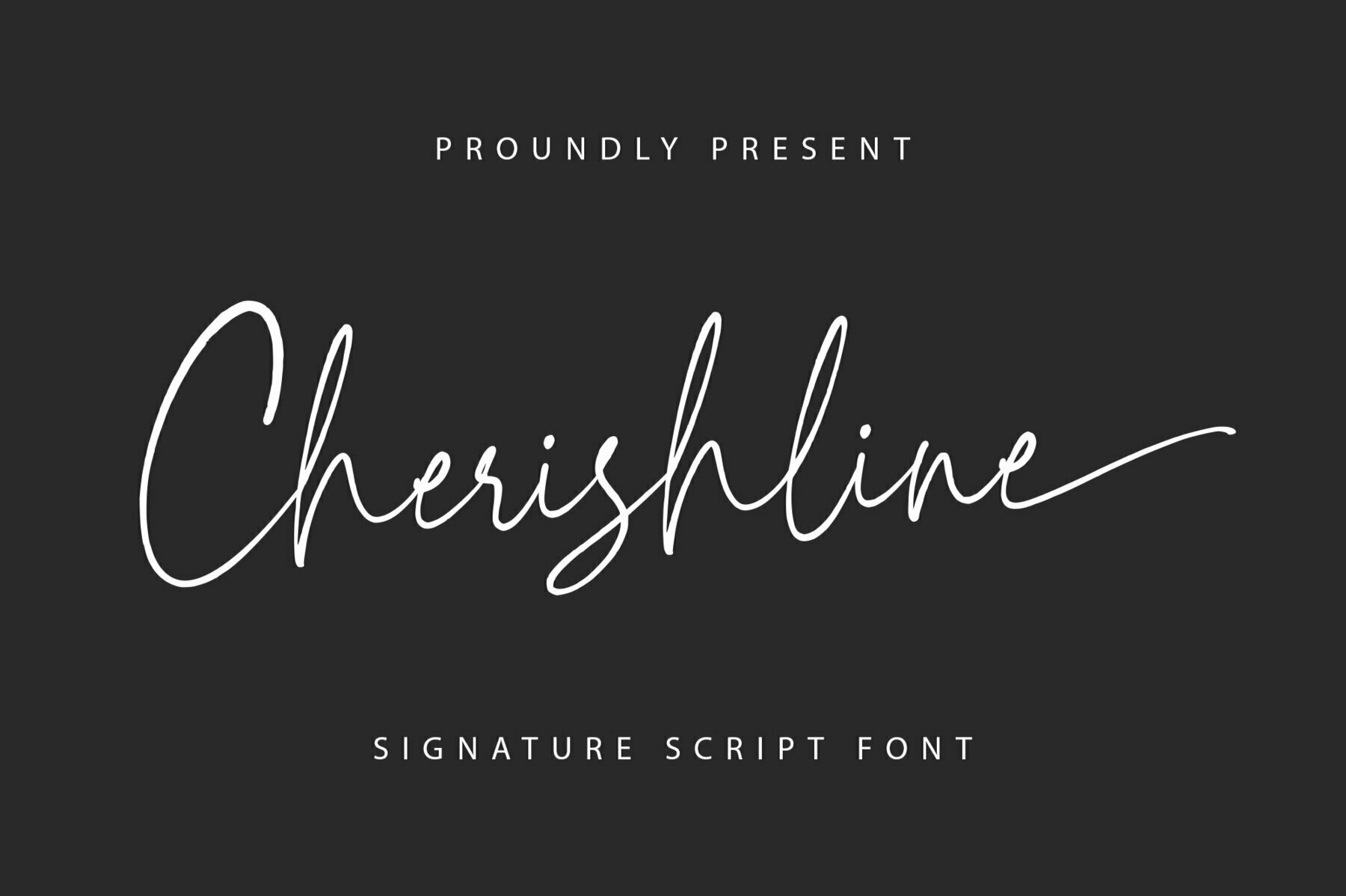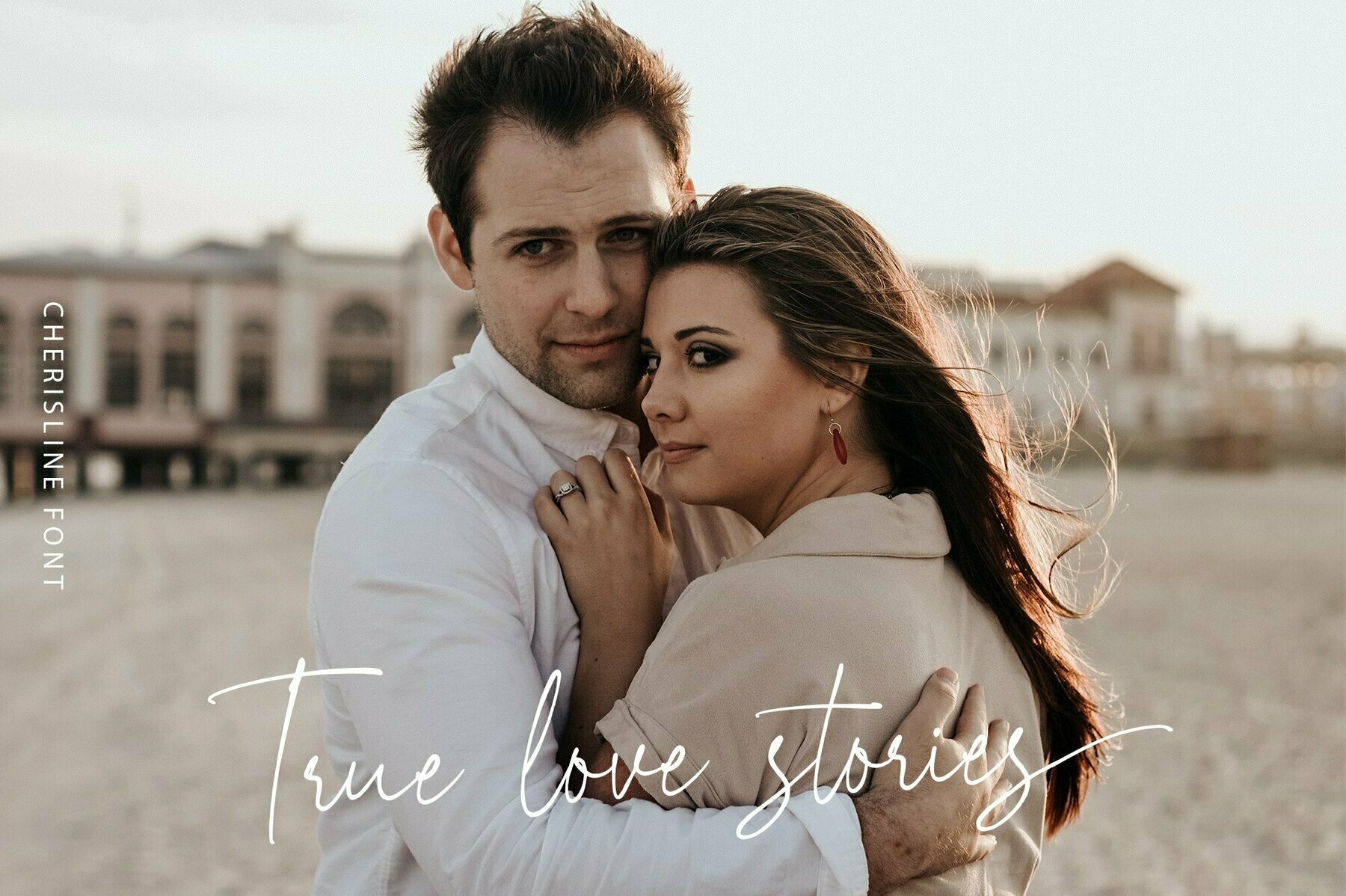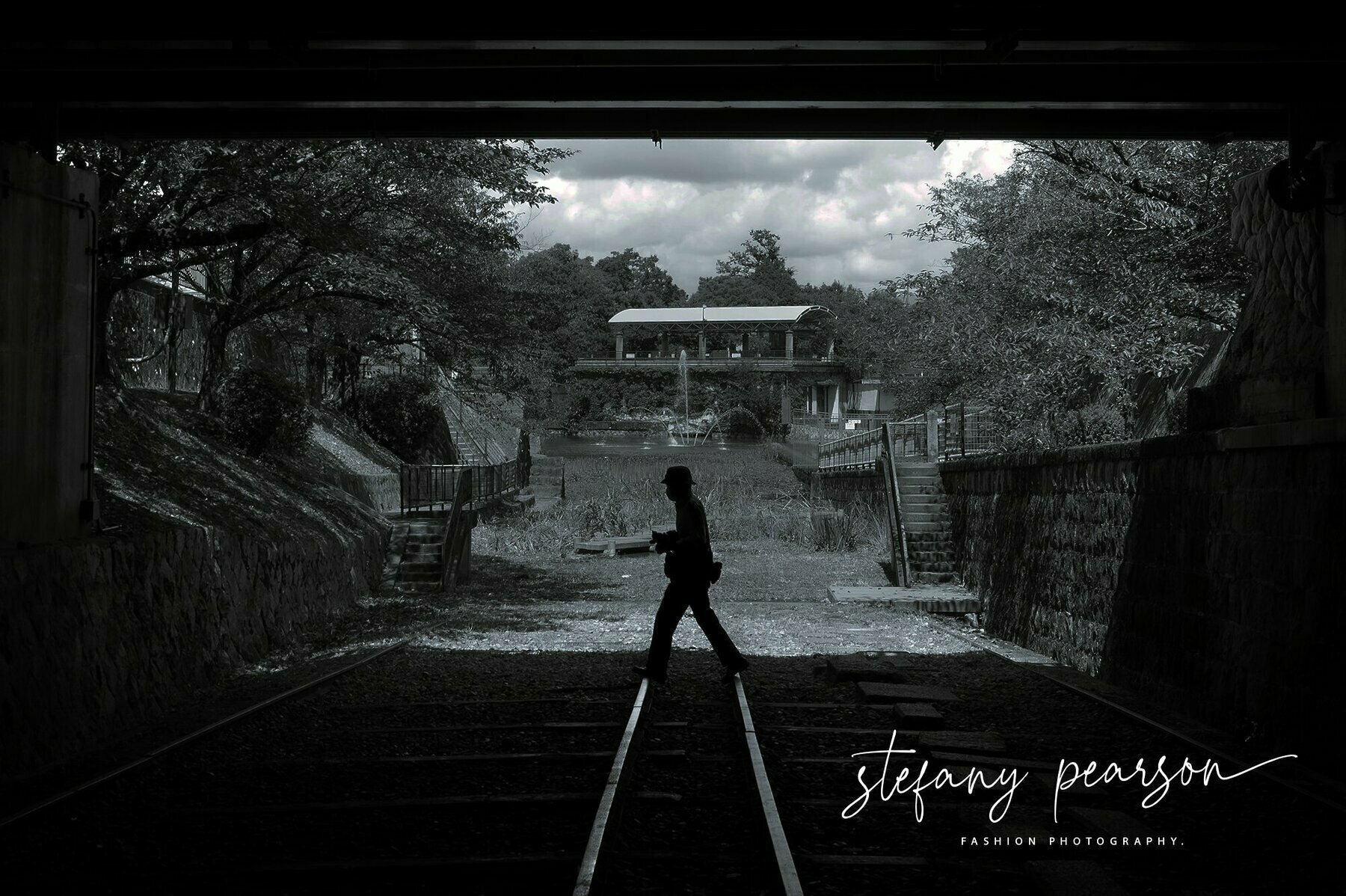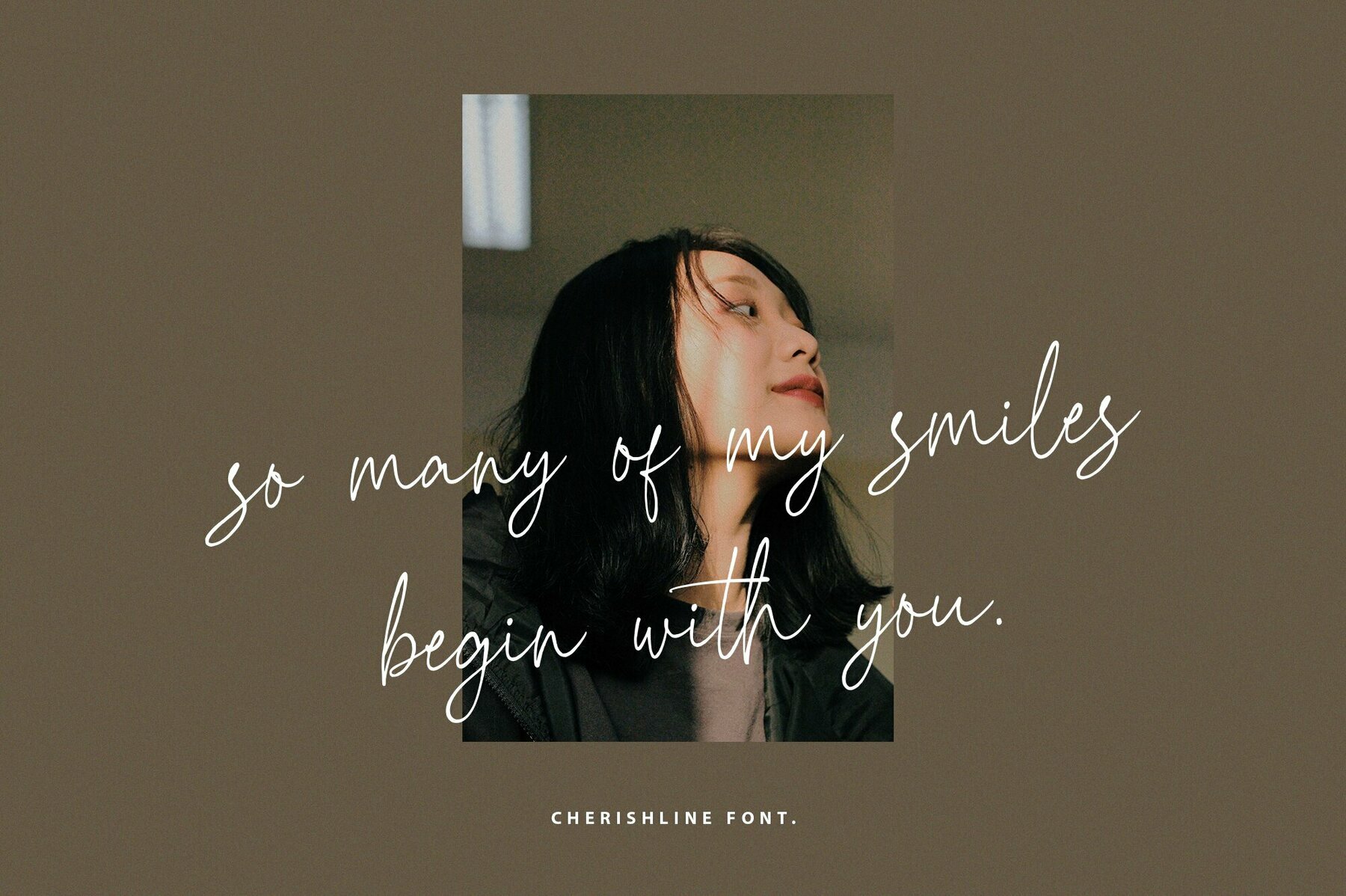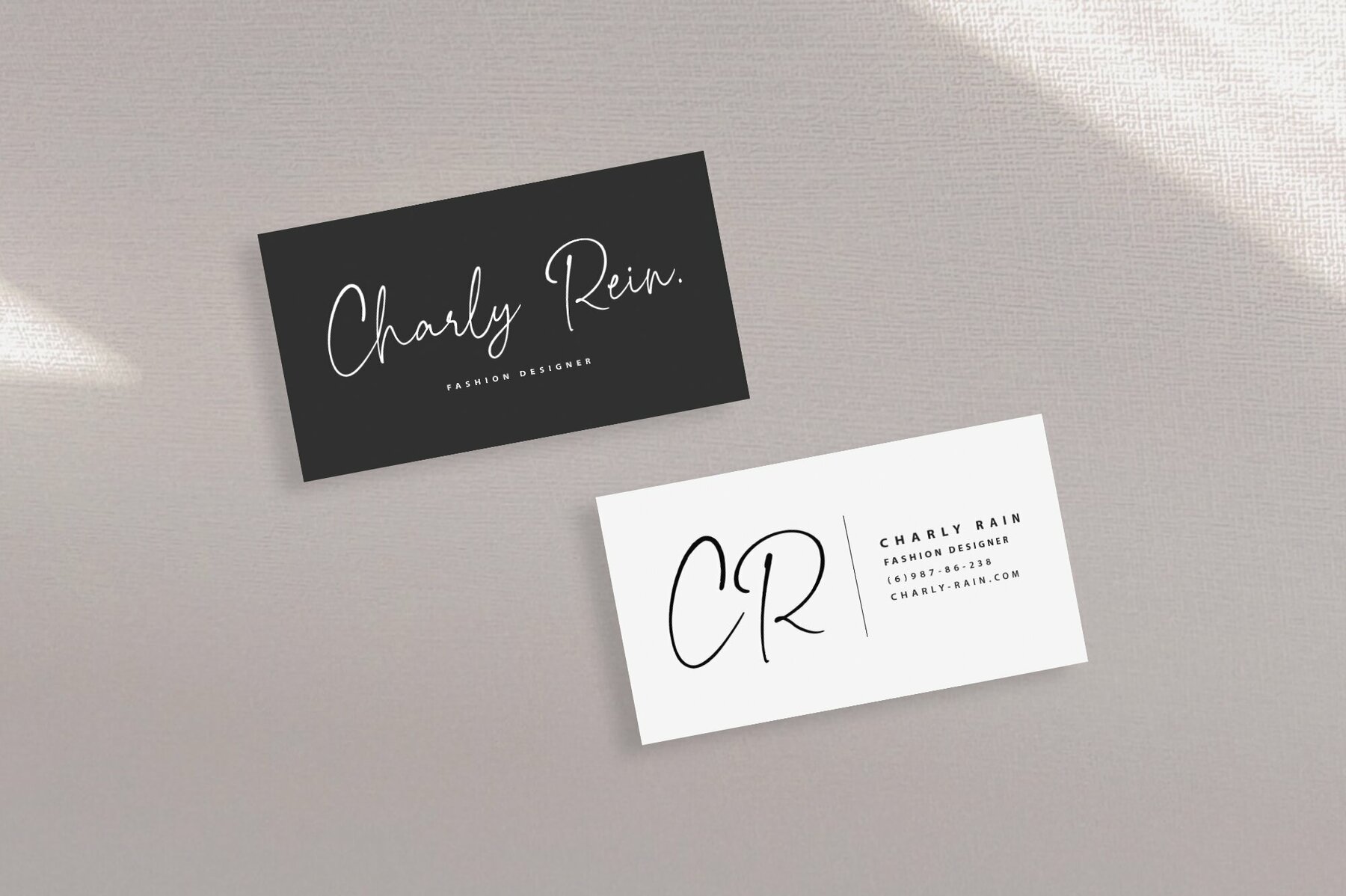
Cherishline Script Font
Cherishline Script
Embrace the refined elegance of Cherishline Script, a sophisticated script font designed to capture attention with its thin, graceful letters. Ideally suited for creating exquisite wedding invitations, stunning stationery art, and captivating social media posts, this font enchants with its alluring style. Its PUA encoding ensures effortless access to all glyphs and swashes, enhancing your creative flexibility. Use Cherishline Script for:Graceful Elegance with Cherishline Script